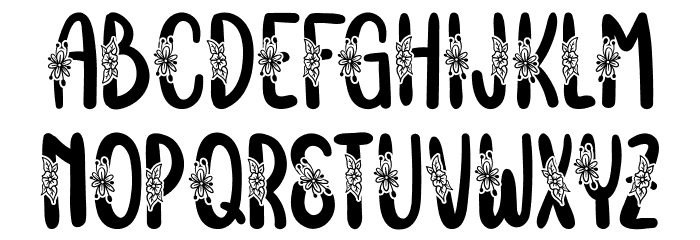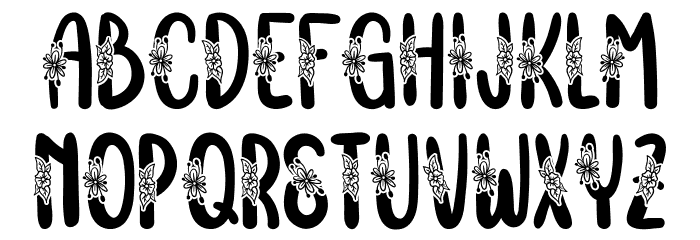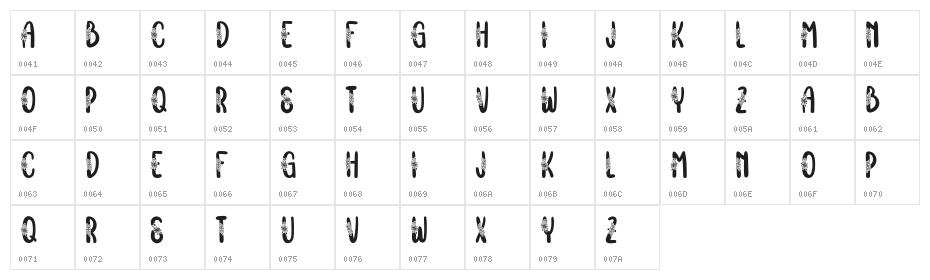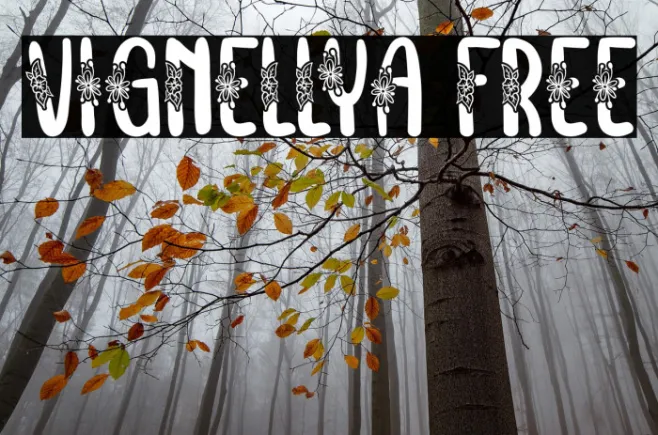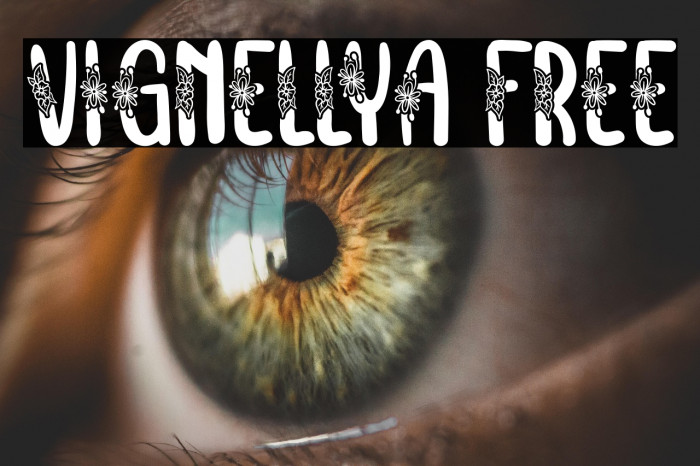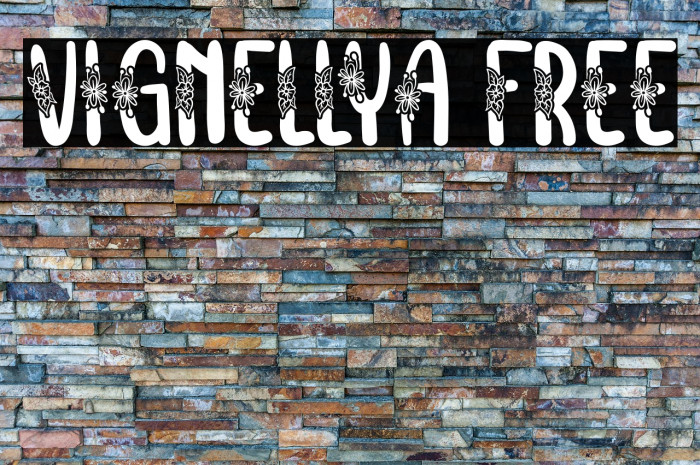
Vignellya FREE Font
This font features a playful and decorative style, characterized by bold, rounded letters adorned with intricate floral patterns. Each character is uniquely embellished with a flower motif, adding a whimsical and artistic touch. The design is consistent across both uppercase and lowercase letters, creating a cohesive and visually appealing typeface. The bold strokes and decorative elements make it stand out, ideal for creative and expressive projects. The font's unique style is perfect for capturing attention and conveying a sense of fun and creativity.
A bold, decorative font with floral embellishments on each character.
- Proposed Projects: Ideal for greeting cards, invitations, posters, and any project requiring a playful and artistic touch.